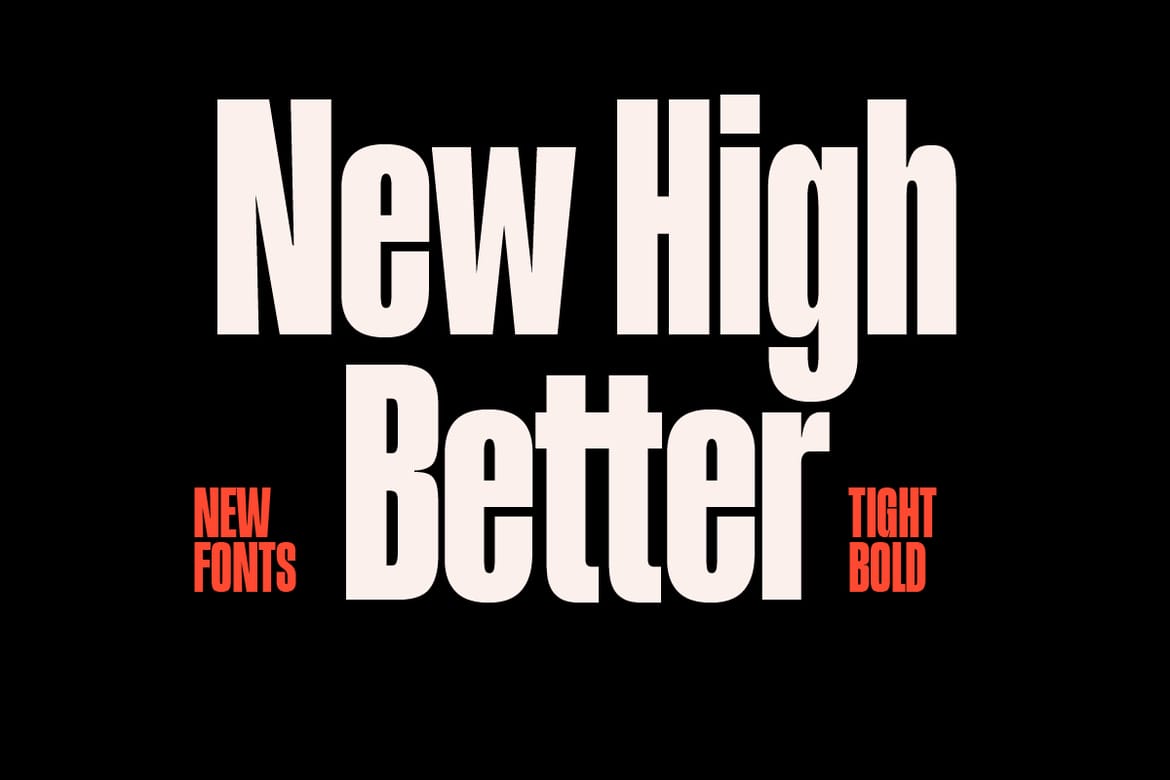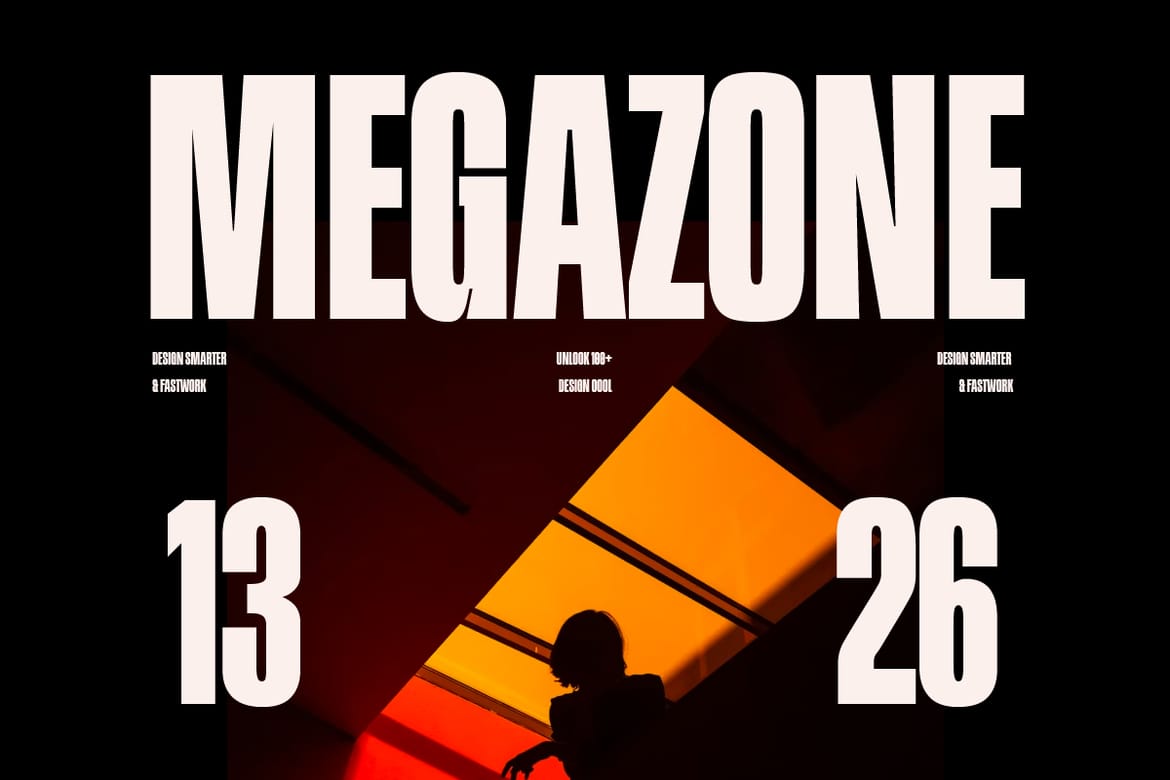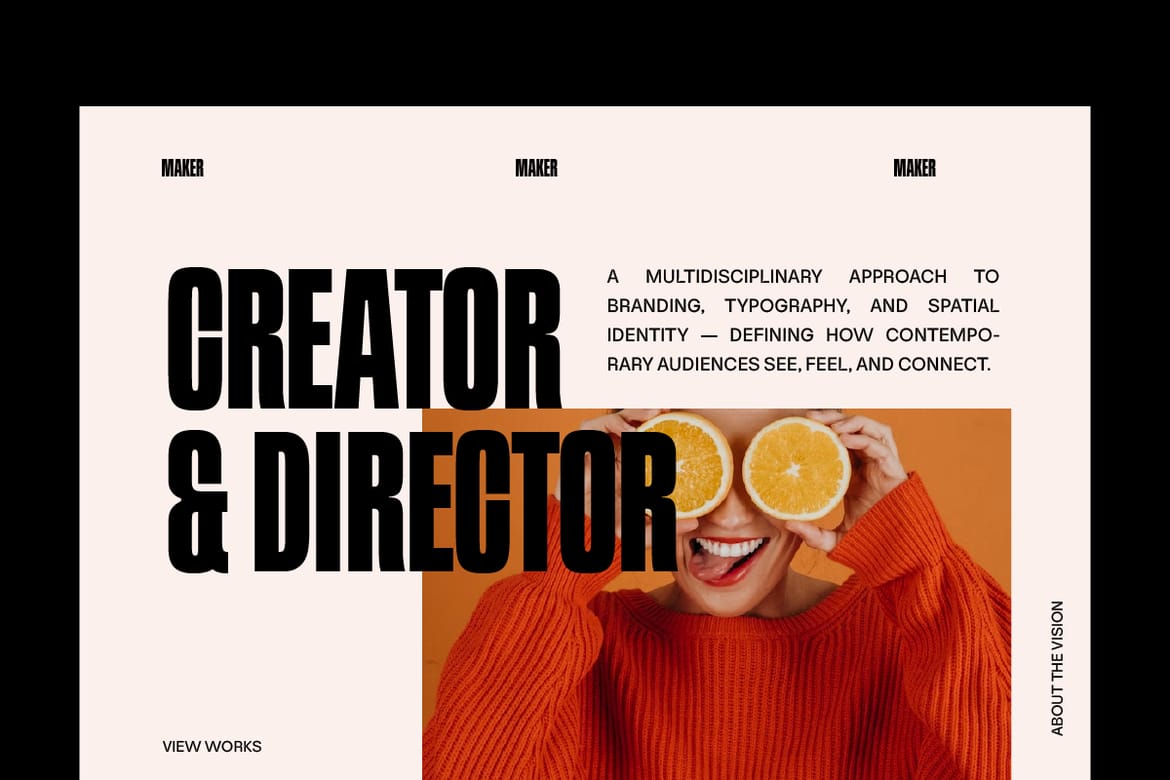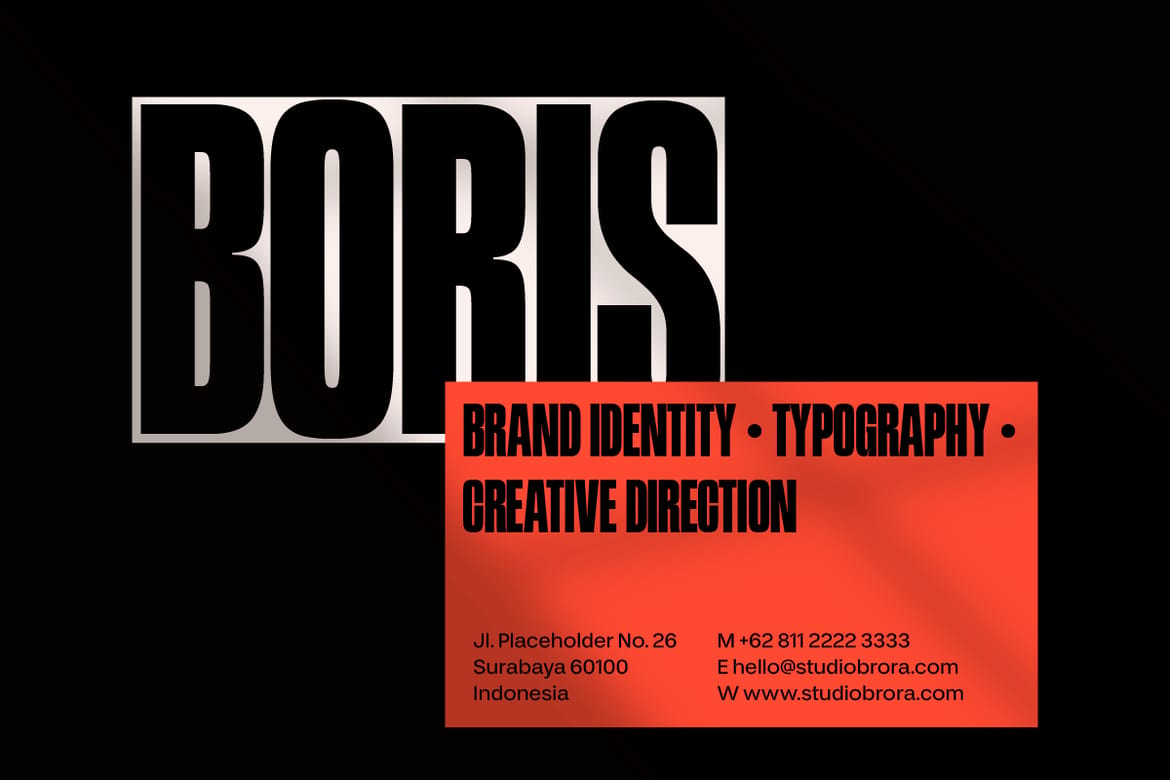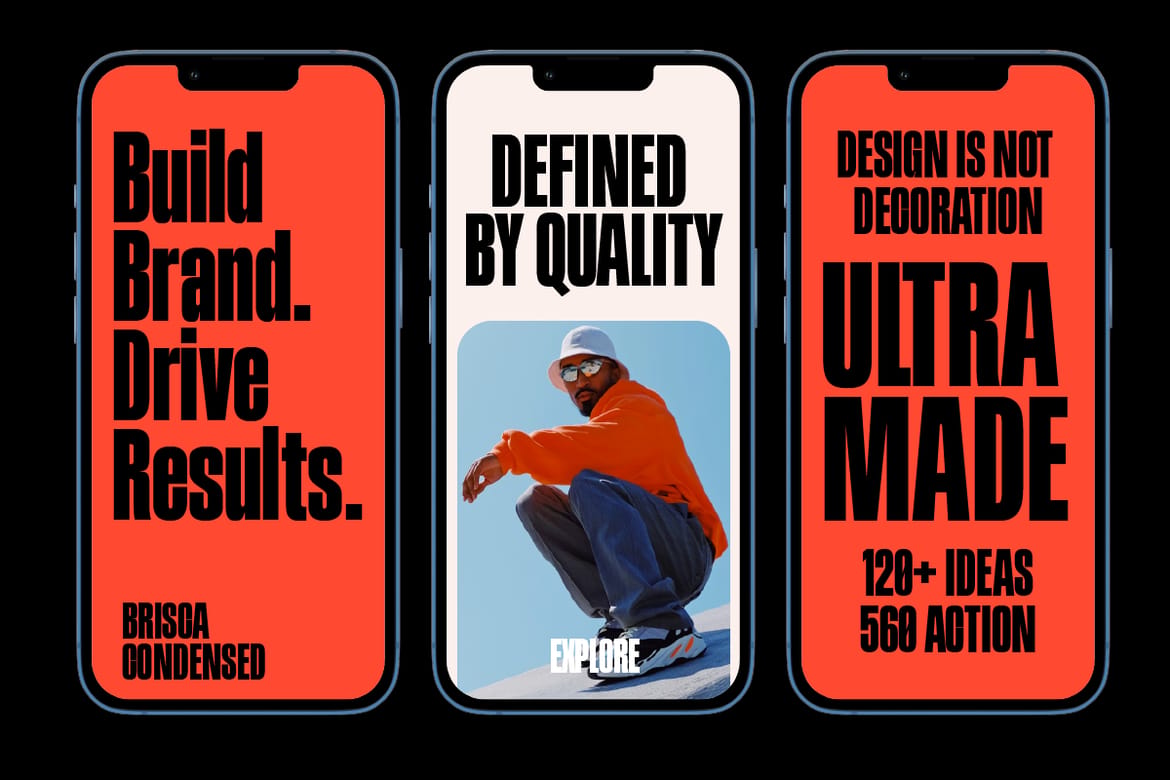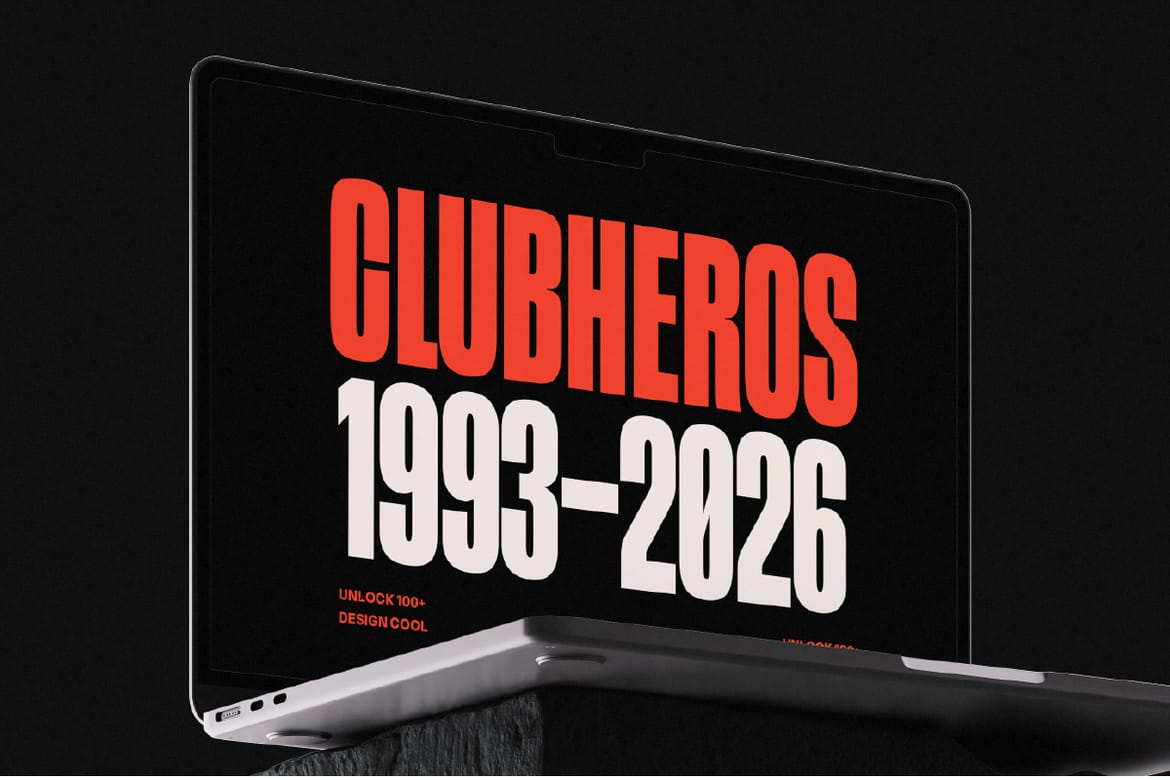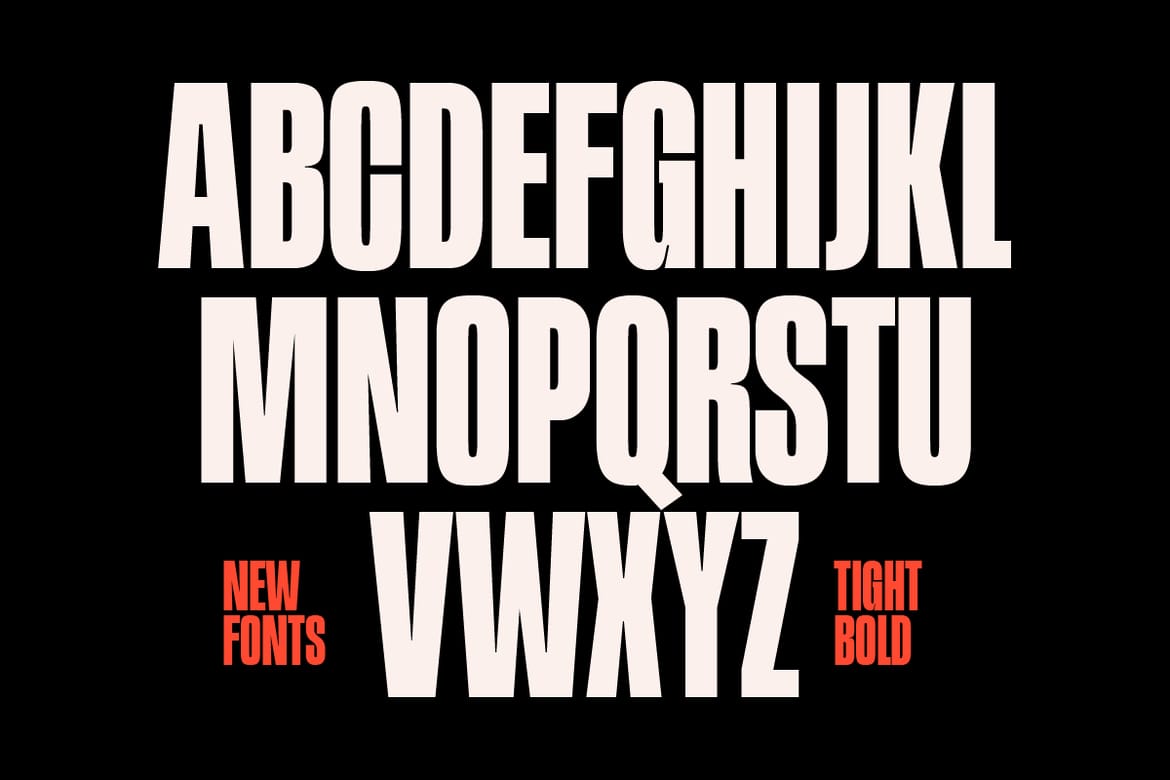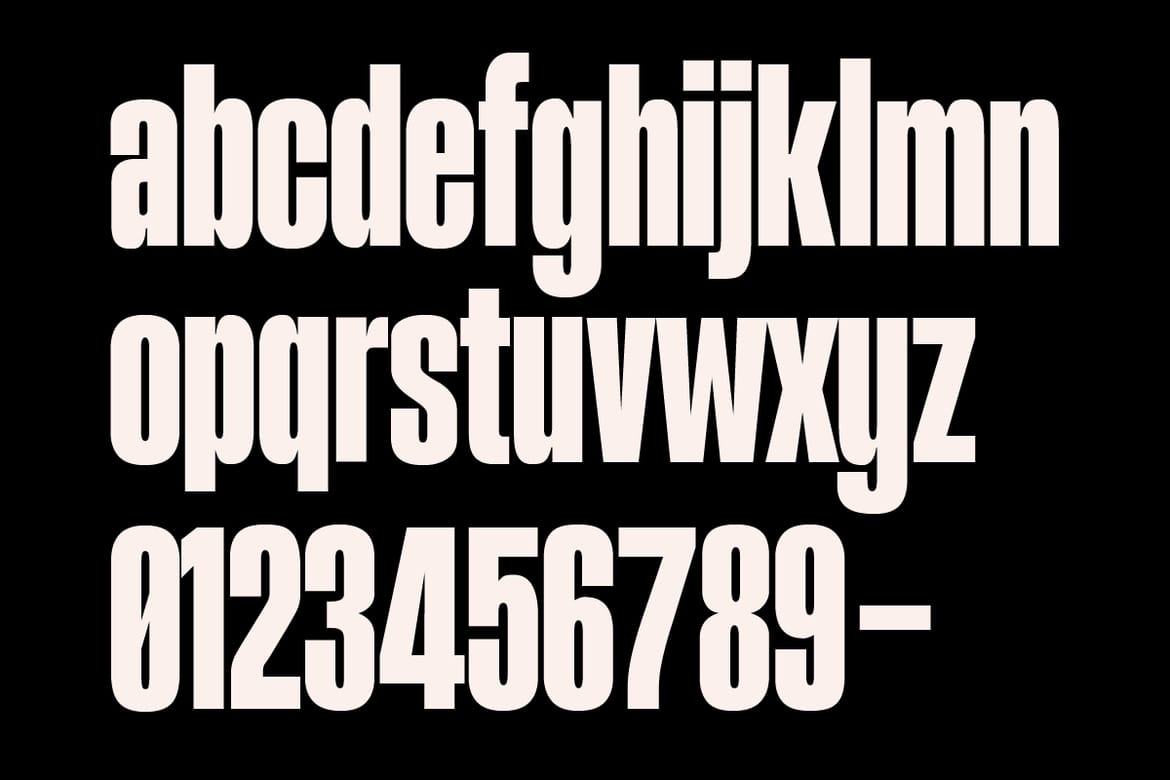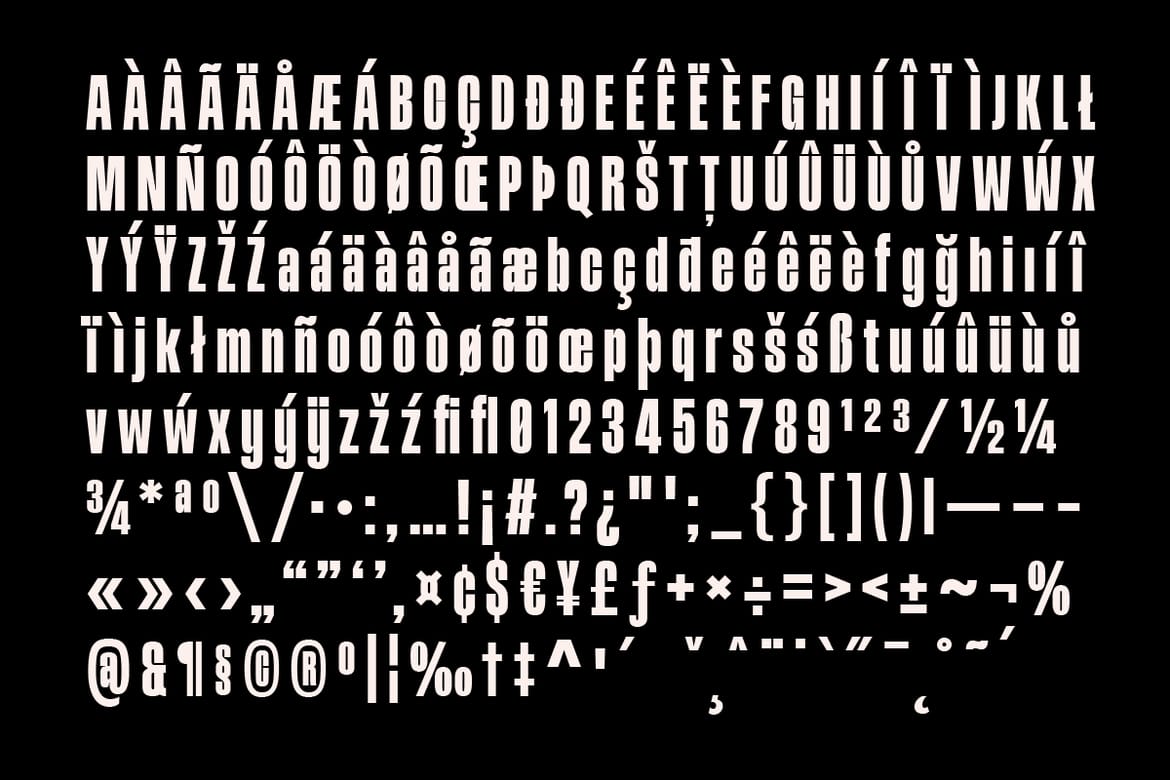
Hansanu Condensed is a modern tall, narrow, and bold display font built to capture attention instantly. Its space-efficient condensed structure delivers a strong, professional look—perfect for advertising, branding, posters, and powerful headlines.
Clean, precise letterforms ensure excellent readability in tight layouts while maintaining a confident, contemporary style. Ideal for designers seeking a modern condensed font, narrow display font, tall headline font, bold advertising font, and professional branding typeface.